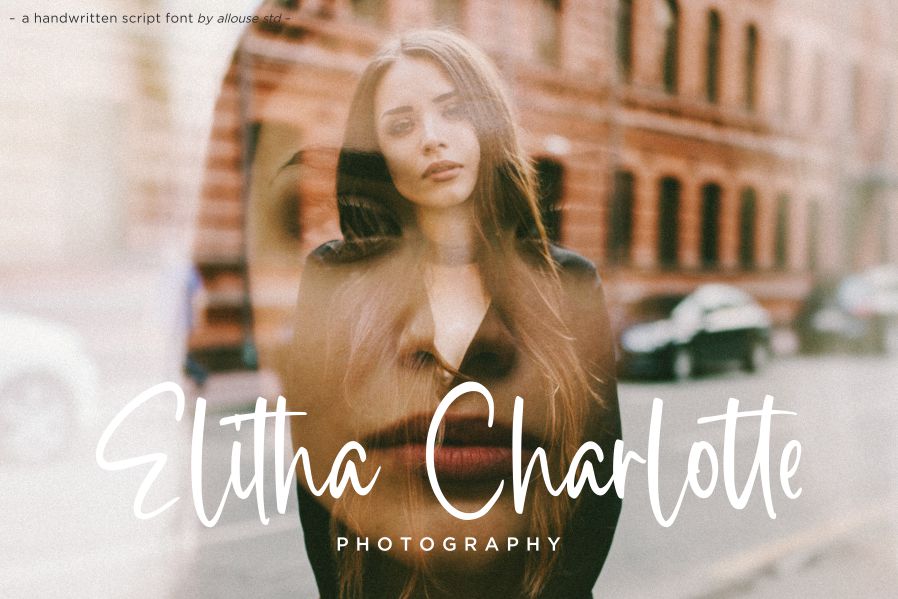
Highstuffy Font
Highstuffy Font is a Handwritten Script Font. Highstuffy is perfect for product packaging, branding project, megazine, social media, wedding, or just used to express words above the background.
Allouse.Studio